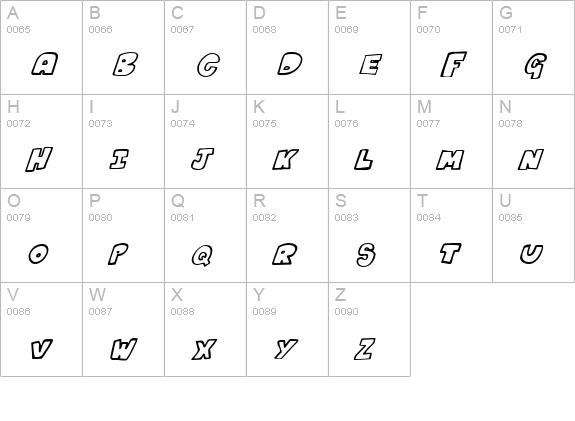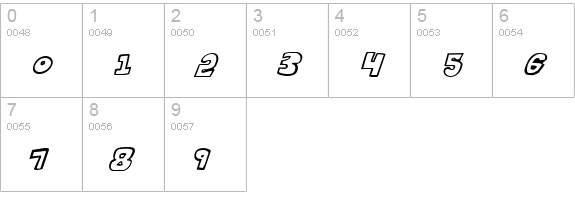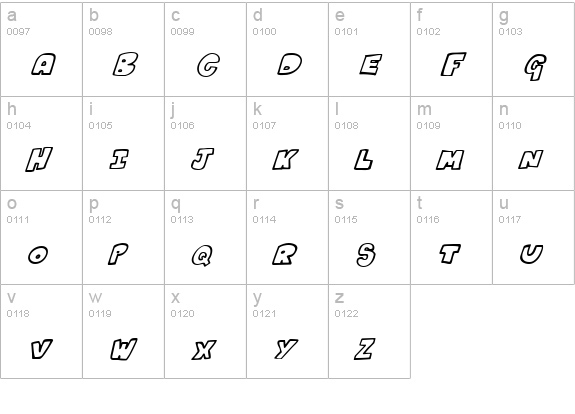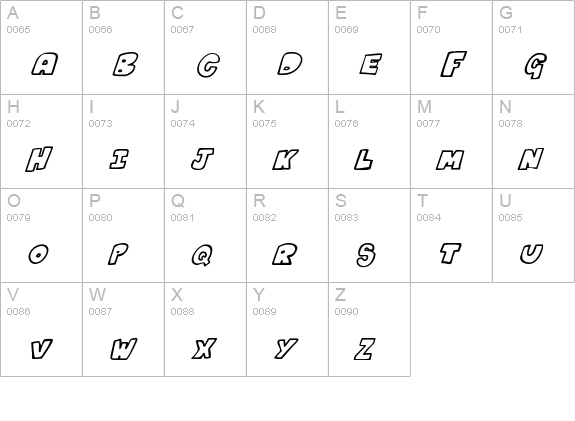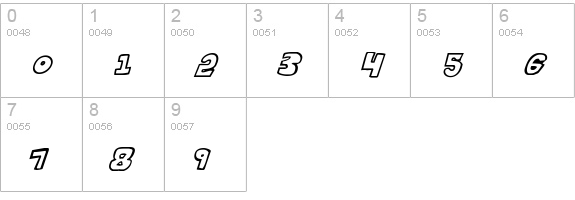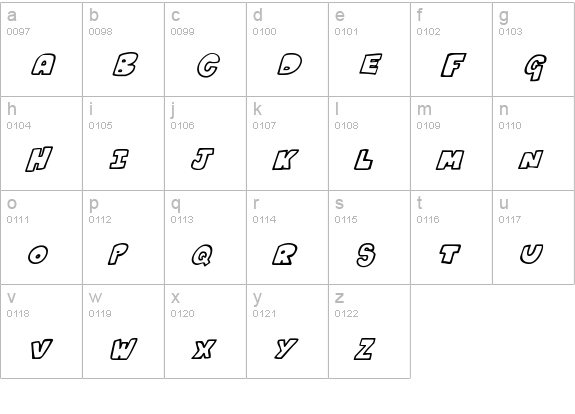
Kartoons Italic is a distinctive, italic variant in the Kartoons typeface family \xE2\x80\x94 well suited to design and typography projects.
Kartoons Italic font is a whimsical and playful typeface that brings a touch of fun to any design project. With its quirky and charming style, this font is perfect for adding a sense of lightheartedness to your creations. The italicized design of Kartoons Italic gives it a dynamic and energetic look, making it ideal for use in children's books, invitations, posters, and more. What's even better is that Kartoons Italic font is available for free download at FontsMarket.com. So, whether you're a professional designer looking to add a unique flair to your work or just someone who loves experimenting with different fonts, Kartoons Italic is the perfect choice. Download it today and let your creativity soar with this delightful and free font!